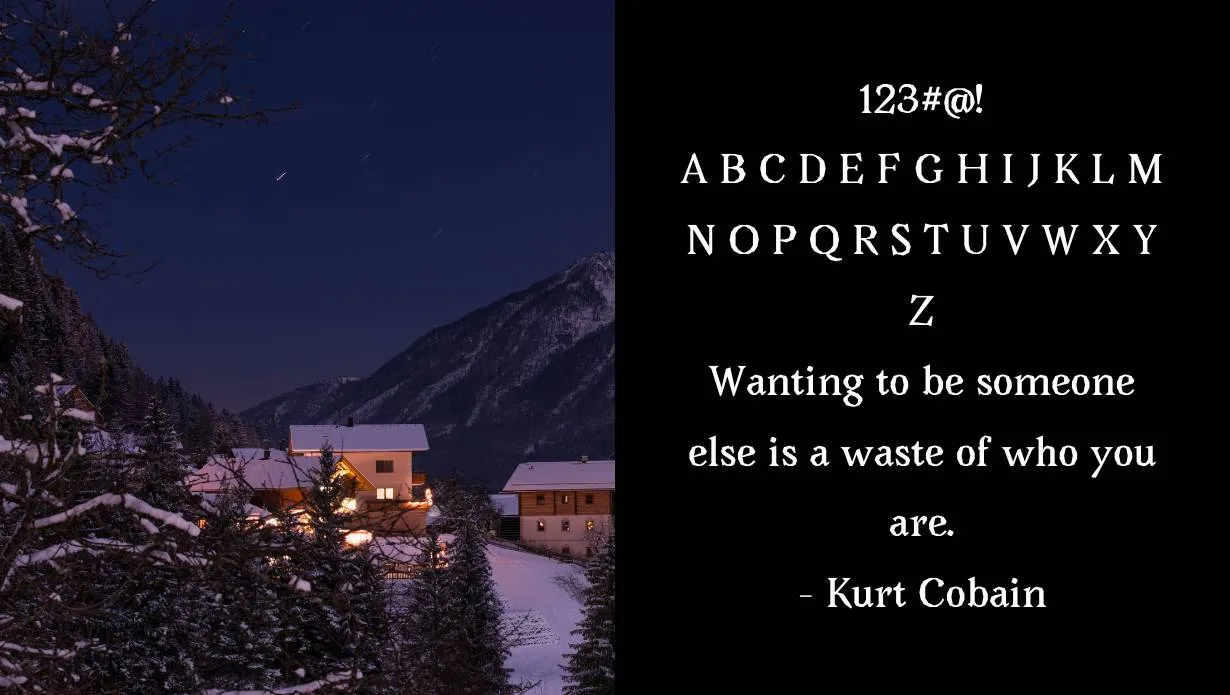
Avara is a versatile serif typeface that has very unique and thick glyphs. It has been designed by Mr. Raphaël Bastide. It features an extended character set with support for over 200 languages, including Cyrillic and Latin-based languages.